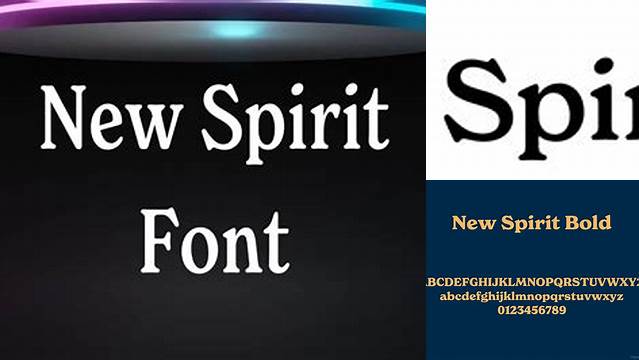
Hey there, font fanatics! If you're on the hunt for a fresh, stylish typeface to jazz up your designs, you're in the right place. Today, we're diving deep into the world of the New Spirit Font, and the best part? You can snag it with a free download! This versatile font is perfect for everything from sleek logos and branding to eye-catching social media posts and captivating website headers. We'll explore its features, how to get your hands on it, and some killer ways you can use it to make your designs pop. So, buckle up, buttercups, because we're about to embark on a font-tastic journey!
New Spirit Font: Unveiling the Design
Let's kick things off by talking about the New Spirit Font itself. What makes this font so special, you ask? Well, it's got a unique blend of modern elegance and a touch of playfulness. The designers have clearly poured their hearts into crafting a typeface that's both readable and visually striking. The clean lines and carefully considered curves give it a sophisticated vibe, while still maintaining a friendly and approachable feel. This makes it incredibly adaptable, whether you're aiming for a minimalist aesthetic or something a bit more expressive. The New Spirit Font often includes a variety of weights and styles, allowing you to customize the look and feel to perfectly match your project's needs. Imagine a sleek, bold version for headlines that demand attention, and a lighter, more delicate version for body text that’s easy on the eyes. Plus, the kerning (the spacing between letters) is usually top-notch, ensuring that your text looks polished and professional. The attention to detail is what truly sets the New Spirit Font apart. It's a font that's been thoughtfully designed to enhance your creative projects and elevate your design game. Furthermore, the versatility of the font extends to different design contexts. From invitations to business cards, from website headers to product packaging, the New Spirit Font can be a powerful tool. Its balanced design allows it to stand out in various applications without overwhelming the other elements of the design. To fully appreciate the design of the New Spirit Font, it's beneficial to look at its specific characteristics, such as its x-height (the height of the lowercase x), the stroke contrast (the difference between thick and thin strokes), and the overall letterforms. These details are crucial for understanding how the font will appear in different sizes and contexts. By understanding the design elements, you can better integrate the font into your designs and choose the right weights and styles to achieve the desired effect. Many designers appreciate the careful balance between simplicity and sophistication in the font, making it a favorite choice. It’s a modern font that avoids being overly trendy, ensuring that it will remain relevant for years to come. The design of the New Spirit Font is all about creating a timeless look that is both functional and aesthetically pleasing.
Exploring the Aesthetics of New Spirit Font
The aesthetics of the New Spirit Font are all about striking a balance between modernity and approachability. The font's clean, crisp lines give it a contemporary feel, making it perfect for designs that want to convey a sense of freshness and innovation. But it doesn’t stop there. The designers have infused a hint of warmth and personality, preventing it from becoming sterile or cold. This unique blend allows the font to be versatile enough to be used across a wide range of projects, from corporate branding to creative endeavors. When you look closely, you'll notice the subtle nuances that contribute to its overall appeal. The carefully crafted curves and the thoughtfully considered spacing (kerning) ensure that the text is both visually appealing and easy to read. This attention to detail enhances the user experience and makes the font a pleasure to work with. Moreover, the aesthetics of the New Spirit Font often include a variety of weights and styles, offering designers the flexibility to customize the appearance to perfectly match their needs. Whether you need a bold headline that commands attention or a softer, more delicate style for body text, this font has you covered. The aesthetic choices of the New Spirit Font are designed to provide both style and functionality. Many designers are drawn to it because it avoids being overly trendy while still maintaining a modern feel. This timeless quality ensures that the font will remain relevant and appealing for years to come, making it a worthwhile investment for any designer's toolkit. The overall goal of the aesthetics of the New Spirit Font is to create a visual experience that is both sophisticated and inviting, capturing the essence of modern design while providing a user-friendly experience.
New Spirit Font in Action: Design Applications
Now that you've got the New Spirit Font, let's explore some awesome ways you can put it to use. This versatile typeface is ideal for a wide range of design projects. For starters, it’s perfect for creating eye-catching logos and branding materials. The clean lines and modern feel of the font can instantly give your brand a professional and contemporary look. Think about using the New Spirit Font for your company logo, business cards, and website. Another fantastic application is in social media graphics. Whether you're creating Instagram posts, Facebook banners, or Twitter headers, the New Spirit Font can add a touch of style and sophistication to your content. Experiment with different weights and sizes to create visually appealing posts that capture your audience's attention. In terms of website design, the New Spirit Font is excellent for headers, subheadings, and body text. It's readable and elegant, making it a great choice for conveying your message clearly and effectively. You can pair the font with different background colors and design elements to create a cohesive and visually appealing website. The font also works wonders for print materials, like brochures, flyers, and posters. The New Spirit Font's versatility allows it to be easily integrated into various print designs, making them look sleek and professional. Whether you are creating a marketing campaign or internal communications, the New Spirit Font can enhance your materials' visual impact. The New Spirit Font is also a great fit for various types of creative projects. If you're a blogger or content creator, you can use it to create stylish headings and text overlays for your images and videos. It's also suitable for designing invitations, greeting cards, and other personalized projects. When using the New Spirit Font, experiment with different styles and weights. For instance, using a bold style for headlines and a lighter style for body text. Also, consider the color combinations and background elements to create a harmonious design. The font's adaptability makes it suitable for a multitude of different design styles. Whether you want to create a minimalist look or a more vibrant one, the New Spirit Font can help you achieve your desired aesthetic.
Logo Design with New Spirit Font
Creating a compelling logo is crucial for any brand, and the New Spirit Font can be a powerful tool in this process. This font’s clean, modern aesthetics make it an excellent choice for logos that aim to convey a sense of professionalism, innovation, or creativity. Here's how you can leverage the New Spirit Font to design a logo that stands out. Begin by considering the personality of your brand. Does your brand aim to be sophisticated, playful, or something in between? Choose the weight and style of the New Spirit Font that best reflects your brand's essence. A bolder weight might be appropriate for a brand that wants to project strength and confidence, while a lighter weight might be better suited for a brand with a more delicate or elegant image. Experiment with different letter spacing and kerning. The New Spirit Font can be tweaked to create a custom look and feel. Adjusting the space between letters can significantly impact the overall visual appeal of your logo. Consider how the font will look on different backgrounds. The New Spirit Font is generally adaptable to both light and dark backgrounds. However, make sure to test your logo in various color combinations to ensure that the text is easily readable. The font is most effective in a variety of sizes. Make sure to test the logo in both large and small formats. The logo design must work effectively across all your marketing materials, from websites to business cards. Furthermore, consider the use of accompanying graphic elements. The New Spirit Font can be combined with other design elements, such as icons, shapes, and illustrations, to create a more complex and engaging logo. Make sure to choose design elements that complement the font and reflect your brand's identity. Think about color psychology. Different colors evoke different emotions and associations. Choosing the right color palette can help you further define your brand's personality. You can use the font in the main logo text and also use it to make variations or submarks of your primary logo. This way, you can create a cohesive brand visual system. Designing a logo with the New Spirit Font allows you to showcase your brand's identity. By paying attention to detail, the font’s versatility, and its adaptability across various mediums, you can craft a memorable and effective logo that resonates with your target audience.